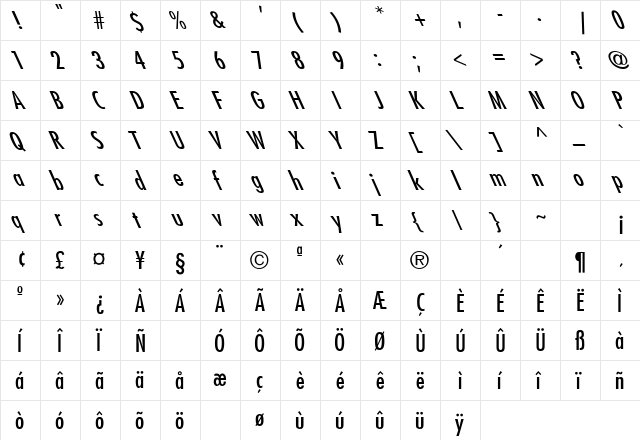
Futura-Condensed-Extreme-Lefty Regular
Design Context for Futura-Condensed-Extreme-Lefty Typeface
Futura-Condensed-Extreme-Lefty channels digital-age aesthetics through its sharp, structured letterforms — ideal for brands that want to signal innovation. The condensed width makes it efficient for tight spaces without sacrificing legibility.
Pro Tip: Try Futura-Condensed-Extreme-Lefty with generous letter-spacing in UI labels and navigation — the geometric forms benefit from room to breathe.